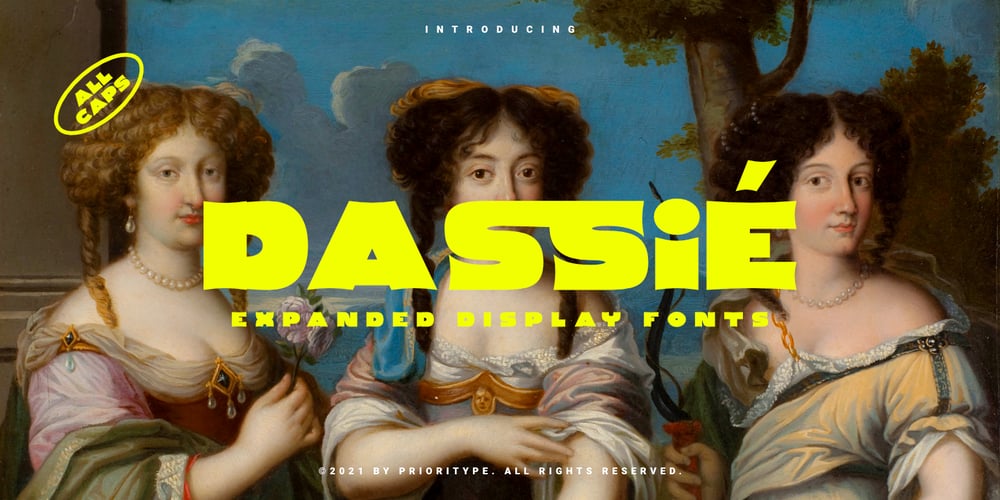
Dassie Font Family was designed by Prio Nurokhim Aji and published by Prioritype. Dassie contains 1 styles and family package options. Introducing.Dassie – Expanded Display FontsCool display fonts are ready to create new ideas for your design projects. It is good to be applied to various types of designs for young people today and goes back to the past. Now you can team up with this font to create t-shirt designs, book covers, posters, logos, landing pages, promotional designs, social media posts etc. See some of the previews above for reference.Features:• All Caps• Numeral• Punctuation• Multilingual• PUA EncodedThanks.